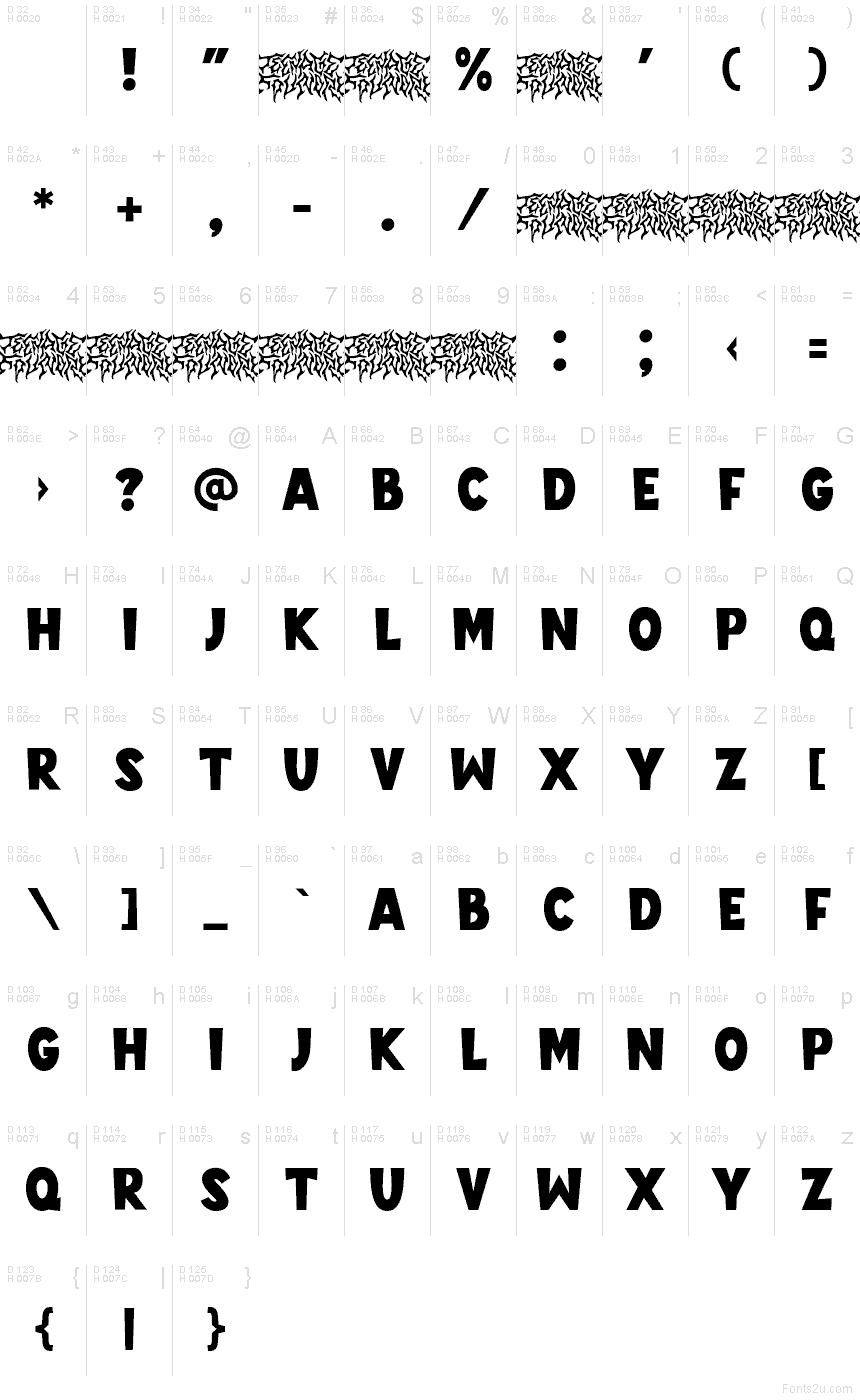
Teenage Fortun Demo
Teenage Fortun font by Teenage Foundry is a free comic display typeface with loud, inky letters that feel hand-sketched and slightly unruly. The chunky strokes, tight spacing, and uneven rhythm give it that noisy, teenage energy—like bold marker titles on a notebook cover. It grabs attention instantly, but still reads cleanly at a glance.
Using Teenage Fortun, you can shout on gig posters, zines, YouTube thumbnails, comic covers, kids’ book titles, stickers, and playful merch. This free font shines when it’s big and bold; keep it for headlines and pair it with a simple sans serif for captions or small text to let its rough, shouty personality stand out.